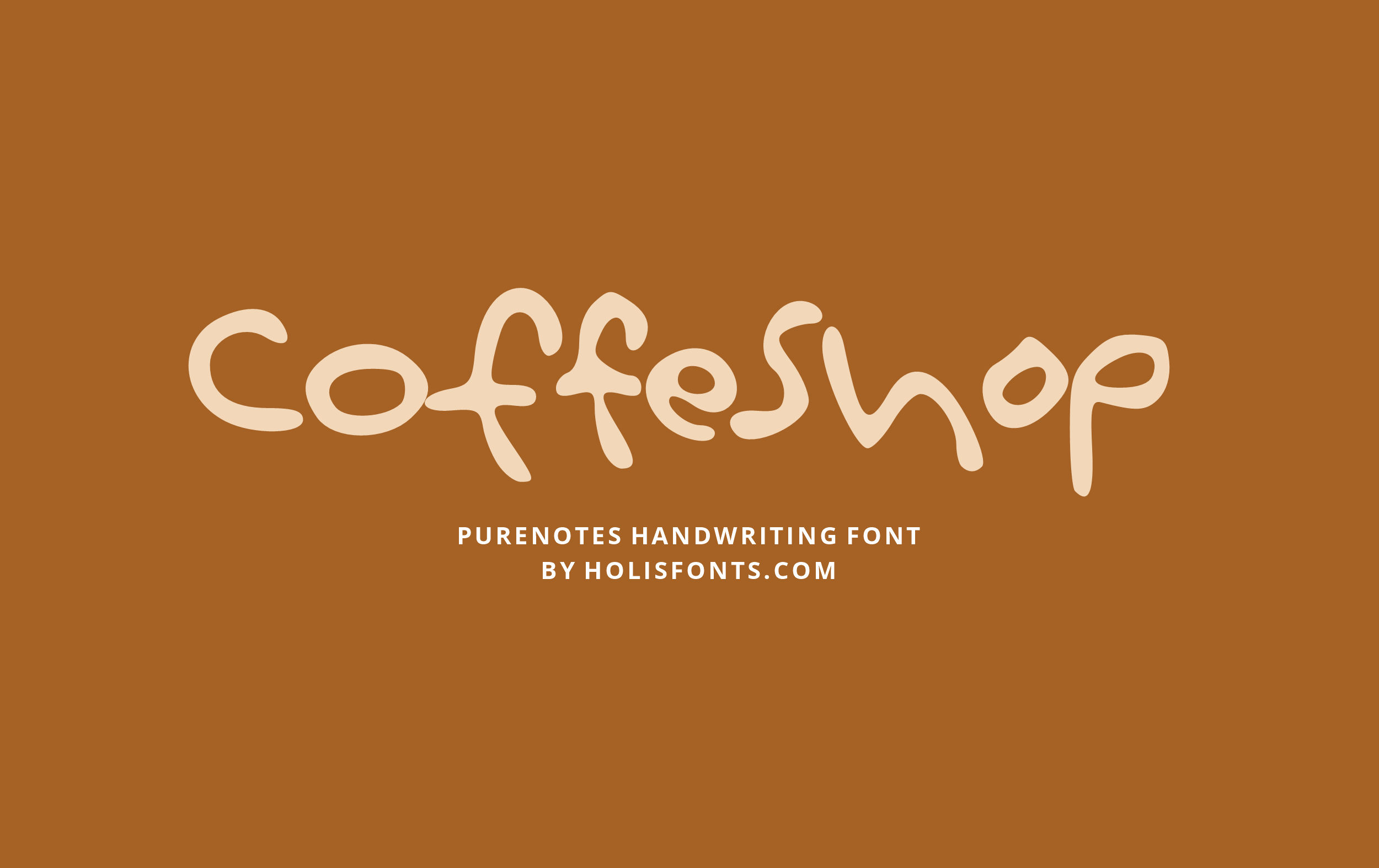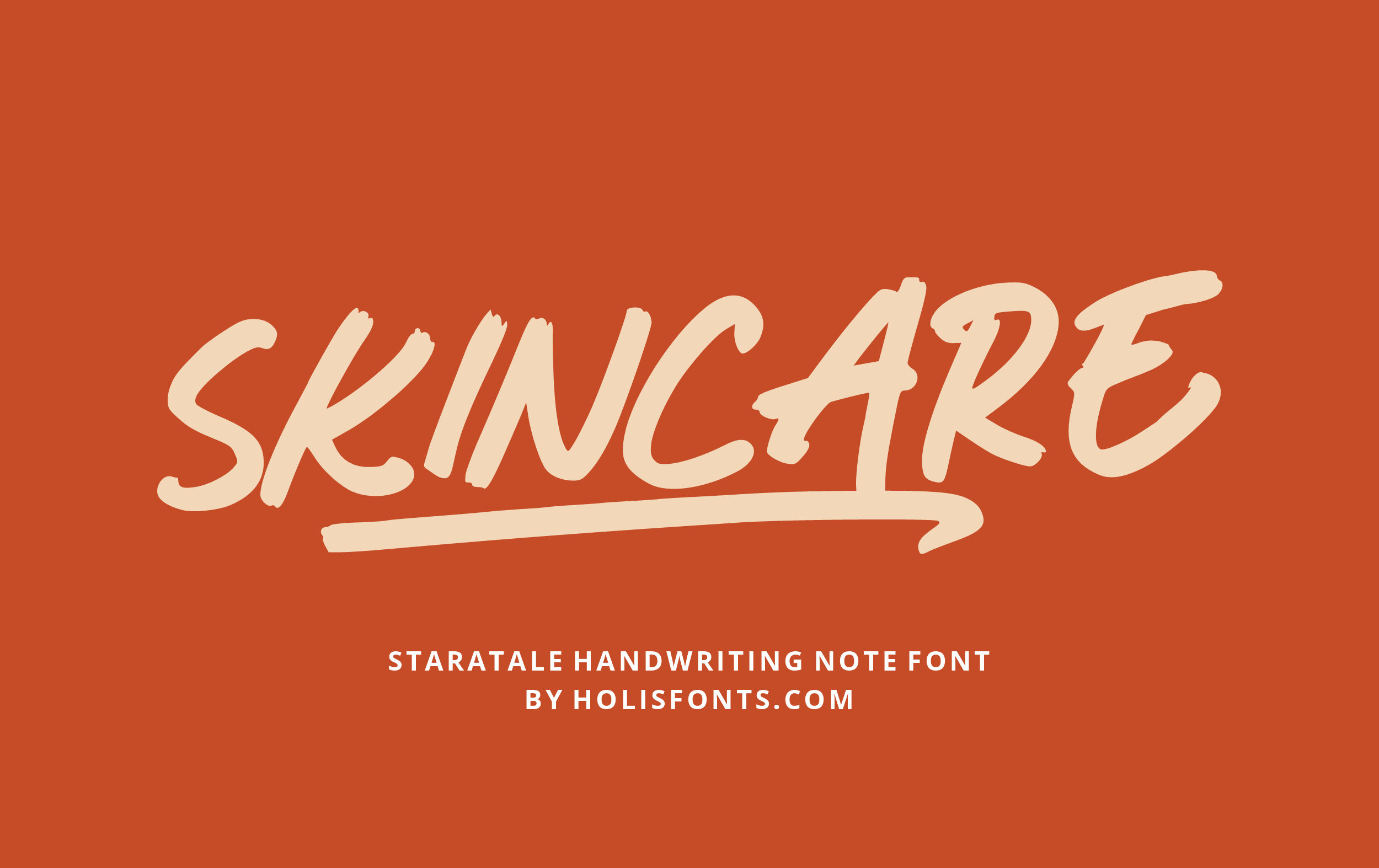
Handwritten & Brush Fonts Are Taking Over Branding in 2026. Here’s Why
Handwritten font example showing natural type taking over branding in 2026
Open Instagram, walk into a specialty coffee shop, or browse Etsy for handmade goods — you’ll notice something. The sleek, perfectly geometric sans-serifs that dominated design for the past decade are slowly being pushed aside. In their place? Fonts that look like they were written by a real human hand, with real ink, on real paper.
Handwritten and brush fonts are having a massive moment in 2026, and it’s not a coincidence. There’s a cultural force driving this shift — and if you’re a designer, brand owner, or creative professional, understanding it will change how you think about typography.
The Big Picture: Why Brands Are Going “Human” in 2026
We live in an era of AI-generated everything. Logos, copy, images, social media posts — so much of what we see online is now produced by algorithms. And while AI tools are undeniably powerful, they’ve also flooded the visual landscape with a kind of sterile perfection.
Audiences are noticing. And they’re craving something different.
In 2026, the most forward-thinking brands are deliberately reaching for imperfection as a strategy. A brushy stroke. An uneven baseline. A letterform that looks like a human hand actually held a pen and meant it. These “flaws” don’t undermine a brand — they build trust, warmth, and a sense of authenticity that no polished vector logo can replicate.
This is the cultural engine powering the handwritten and brush font trend this year.
4 Reasons Handwritten Fonts Are Dominating Branding Right Now
1. Authenticity Is the New Premium
For years, “premium” meant minimal, clean, and geometric. Think Apple, Muji, Everlane. But consumer psychology is shifting. People increasingly associate humanness with trustworthiness — especially when everything around them looks machine-made.
Handwritten typography signals to a viewer, instantly and subconsciously: a person made this. That signal is worth more than ever in 2026.
Food and beverage brands are especially tapping into this. A brushy, hand-lettered label on a craft hot sauce or a small-batch skincare product communicates something a sans-serif never could: care, craft, and intention.
2. The Anti-Design Rebellion Is Real
There’s a growing movement among designers — particularly those working in youth culture, streetwear, and music — that actively pushes back against “perfect” design. Inspired by 90s grunge aesthetics, zine culture, and artists like David Carson, this anti-design approach embraces chaotic, scrawly, hand-drawn lettering that feels raw and unfiltered.
For brands targeting Gen Z or alternative market segments, a chaotic brush script is an instant signal of authenticity. It says: we’re not trying too hard. And in 2026, that attitude sells.
3. Bold Brush Scripts Are Getting Bolder
One notable evolution in 2026 is the shift toward heavier, chunkier brush scripts. The ultra-thin, delicate calligraphy scripts that dominated wedding design and beauty branding for years are giving way to thick, confident strokes with real visual weight.
Why? Practicality, partly. Heavier scripts remain legible on small phone screens and packaging. But also, aesthetically, bold brush lettering communicates energy and confidence in a way that thin scripts simply can’t.
This makes heavy brush fonts ideal for food packaging, apparel labels, music posters, and any brand that wants to feel bold and alive.
4. Handwritten Type Pairs Beautifully With 2026’s Biggest Visual Trends
Brush and handwritten fonts don’t exist in isolation — they thrive in combination with the broader design aesthetic of 2026. Think:
• Collage and mixed media layouts where a hand-drawn script anchors a composition of photos, textures, and doodles
• Earthy, organic color palettes (sand, terracotta, sage) that pair naturally with the warmth of a handwritten font
• Textured and letterpress-inspired design where fonts feel like they were pressed into paper or painted on wood
• Naive and playful illustration styles where a personal, scribbly font completes the human-made aesthetic
If your brand is leaning into any of these visual directions in 2026, a handwritten or brush font isn’t just a nice addition — it’s essential.
Who Should Use Handwritten & Brush Fonts?
Purenotes Font
Purenotes handwriting font used in coffee shop branding by Holisfonts
Not every brand needs to go handwritten. But if your audience or industry falls into any of these categories, it’s worth serious consideration:
Food & Beverage — Craft coffee, artisan bakeries, farm-to-table restaurants, small-batch spirits. A brush font on your menu or packaging communicates handmade quality before a customer reads a single word.